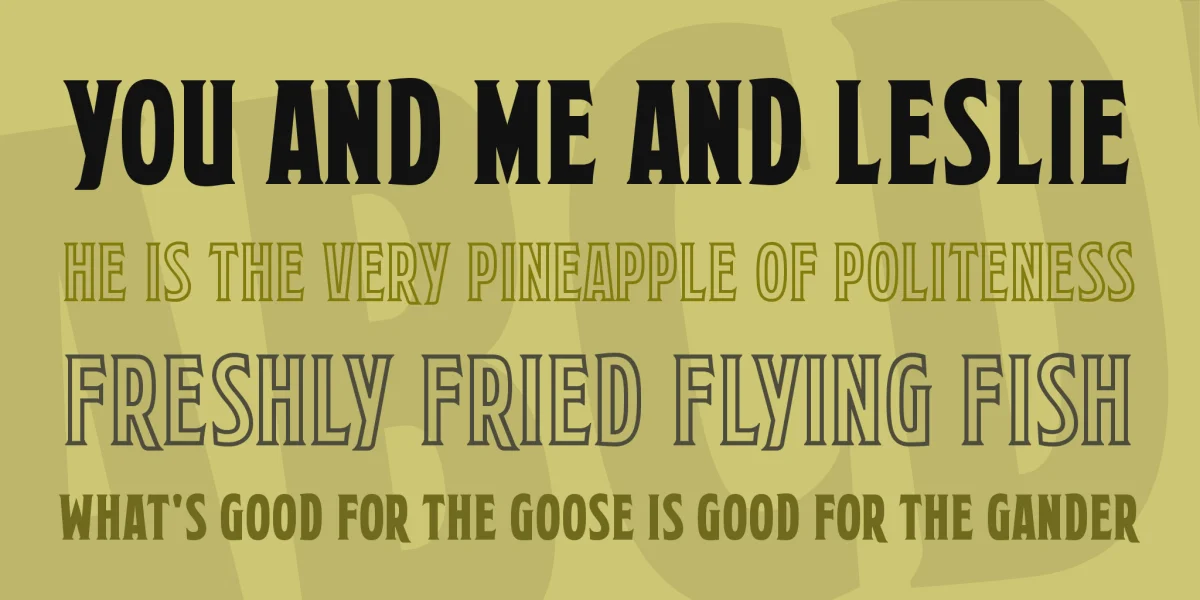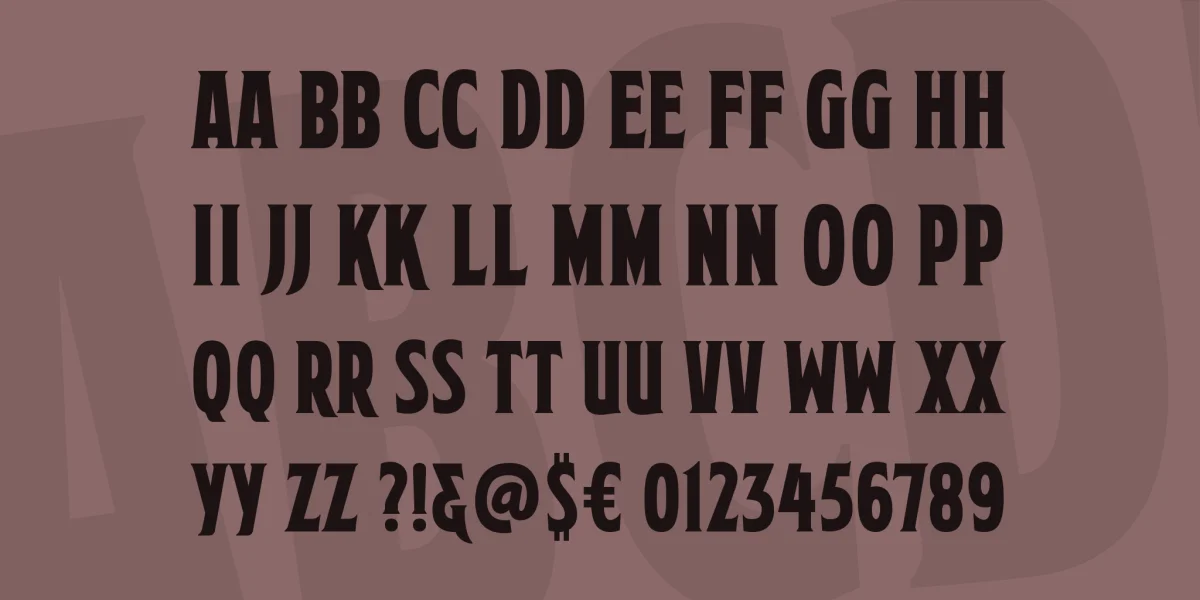
Inspired by actual funeral home signs at the turn of the century, MORTUARY BB is a creepy title font that comes with Regular and Deco (an in-line version.)